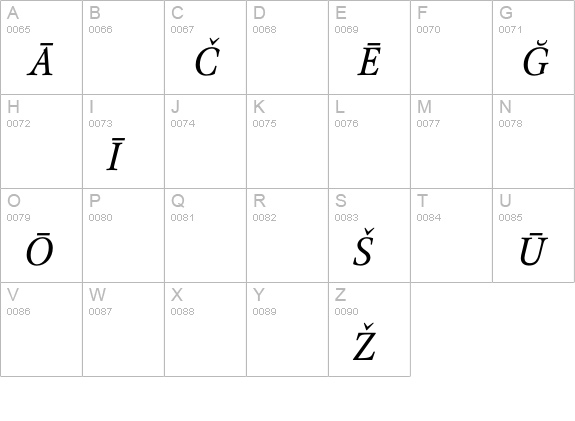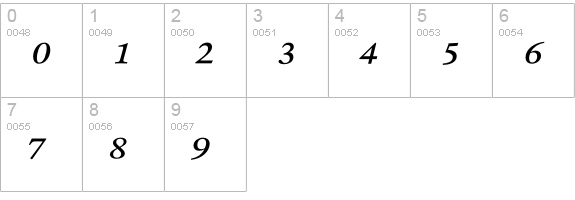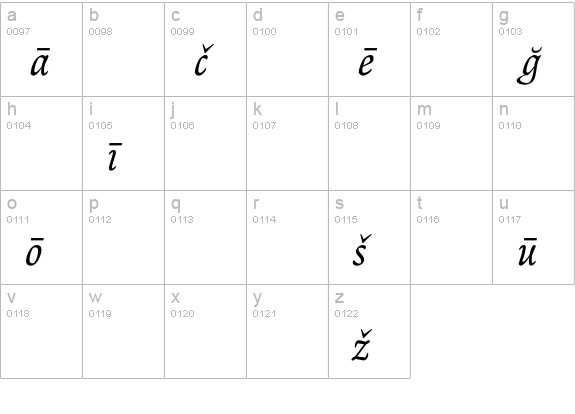
RenardNo2-ItalicPi is a unique and elegant font that exudes a sense of sophistication and class. Its italicized style adds a touch of modernity and fluidity to any design project. This font is perfect for creating eye-catching headlines, stylish logos, and captivating invitations. With its sleek and graceful curves, RenardNo2-ItalicPi is sure to make a lasting impression. It is versatile enough to be used in a variety of contexts, from fashion and beauty to luxury and lifestyle. The font's delicate strokes and perfectly balanced letterforms create a harmonious visual experience. What sets RenardNo2-ItalicPi apart is not just its stunning aesthetics, but also its accessibility. This font is freely available to download at FontsMarket.com, making it accessible to designers of all levels. Whether you are a professional designer or a beginner, RenardNo2-ItalicPi is a valuable addition to your font library. When using RenardNo2-ItalicPi, you can expect nothing less than exceptional legibility and readability. Each character is meticulously crafted to ensure clarity, even at smaller sizes. This attention to detail ensures that your message is effectively communicated, regardless of the medium. RenardNo2-ItalicPi is a font that effortlessly combines elegance with functionality. Its timeless appeal makes it suitable for a wide range of projects, from print materials to digital designs. Whether you are designing a branding project for a luxury brand or creating an elegant wedding invitation, RenardNo2-ItalicPi will elevate your work to new heights. In conclusion, RenardNo2-ItalicPi is a must-have font for designers who value both style and functionality. Its free availability at FontsMarket.com makes it accessible to all, allowing you to create stunning designs without breaking the bank. Download RenardNo2-ItalicPi today and embark on a journey of creativity and visual excellence.